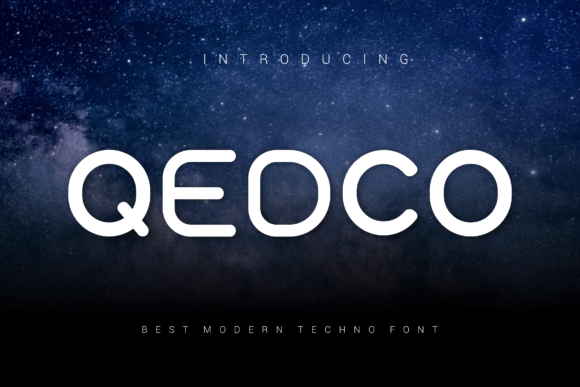
Introducing Qedco, the font of strength and boldness, ready to transform your designs into captivating masterpieces. Discover the power of Qedco, a display font family crafted to grab attention and make your projects shine.
Step into a world where boldness meets elegance, where every letter exudes confidence and impact. Qedco is not just a font; it's a statement piece, a creative tool that breathes life into your designs.
Whether you're creating sports designs, team jerseys, movie posters, or book covers, Qedco is your perfect partner. Its robust structure and vibrant touch add an unforgettable spark to your projects, leaving a lasting impression on your audience.
Unleash your creativity and explore the endless possibilities of Qedco. Let it be the focal point of your logos, posters, games, and headlines, commanding attention and leaving a mark of excellence on everything it touches.
With Qedco, you're not just designing, you're creating a visual symphony that resonates with power and grace. Embrace the boldness, embrace the beauty, and experience the transformative power of Qedco today!